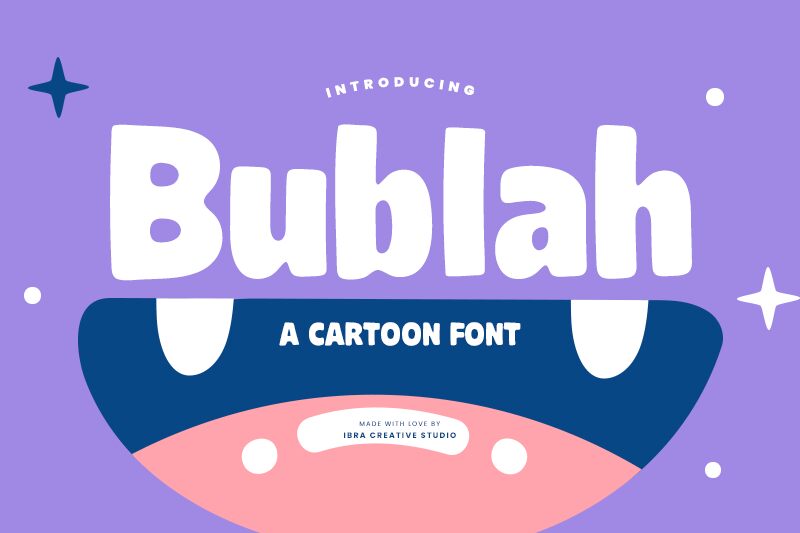
Bublah Personal Use Regular
Bublah font by Ibra Creative Studio is a display cartoon font for creating eye-catching designs. Its generous proportions give the bold characters a friendly organic appearance. A casual style balances its contemporary feel which makes it suitable for modern branding or advertising uses among other design projects.
Also, this free display font is perfect for logos, headlines, packaging designs, product labels, posters, signage, banners, and social media templates. Use it in your typography and make use of its charm to stand out from the rest.